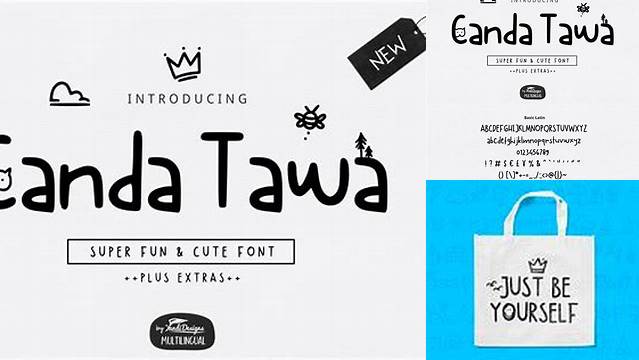
Are you looking to add a touch of playfulness and charm to your designs? The Canda Tawa cute font might be just what you need! This delightful font is perfect for a wide range of projects, from birthday invitations and greeting cards to social media graphics and branding materials. Its whimsical and friendly appearance makes it an excellent choice for designs that aim to evoke joy and warmth. In this comprehensive guide, we’ll explore everything you need to know about the Canda Tawa font, including what makes it so special, where you can download it for free, and how to use it effectively in your projects. We'll also delve into the design elements that make this font a standout choice and provide tips on pairing it with other fonts to create stunning visual compositions. So, if you're ready to infuse your work with a dose of cuteness, let's dive in and discover the world of Canda Tawa!
The Canda Tawa font isn't just another typeface; it's a design element that can significantly impact the overall feel and message of your project. Think about it – fonts are like the voice of your design. A serious, formal font might be perfect for a legal document or a corporate report, but when you're aiming for something lighthearted and fun, a cute font like Canda Tawa can make all the difference. This font has a unique personality that shines through, making it ideal for projects targeting children, creative endeavors, or anything that needs a touch of whimsy. The beauty of Canda Tawa lies in its versatility. It’s not just for kids’ stuff; you can use it in various contexts to add a friendly and approachable vibe. Imagine using it for a small business's logo, a blog header, or even a quirky T-shirt design. The possibilities are endless!
So, what exactly makes the Canda Tawa font so irresistibly cute? It's a combination of several design elements that come together to create a font that's both charming and playful. First and foremost, the rounded edges and soft curves of the letters give it a gentle, approachable feel. Unlike sharp, angular fonts that can sometimes feel harsh or formal, Canda Tawa’s curves create a sense of smoothness and warmth. This makes it incredibly inviting and easy on the eyes. Think of the letters as little, huggable characters – they’re just so friendly! The consistent stroke thickness throughout the font also contributes to its cuteness. A consistent stroke means that the lines that make up each letter are roughly the same width. This creates a sense of balance and harmony, making the font look clean and well-proportioned. It’s not too thin, making it delicate, and it’s not too thick, making it heavy. It’s just right, creating a visual sweetness that’s hard to resist.
Another key element of the Canda Tawa font is its playful letterforms. Some letters might have a slight tilt, a little curl, or an unexpected loop that adds a touch of whimsy. These little quirks give the font character and make it stand out from more generic typefaces. It’s these subtle details that make Canda Tawa feel unique and special. The spacing between letters, also known as kerning, plays a significant role in the font's overall appearance. Canda Tawa typically has generous spacing, which means the letters aren’t too crowded together. This makes the font easy to read and gives each letter room to breathe. Proper spacing is crucial for readability, especially in longer blocks of text. With Canda Tawa, the spacing is just right, ensuring that your message comes across clearly and beautifully. The overall design of Canda Tawa is carefully crafted to evoke a sense of joy and lightheartedness. It’s a font that doesn’t take itself too seriously, and that’s part of its charm. When you use Canda Tawa, you’re not just adding text to your design; you’re adding a personality. It’s a font that can instantly make your project feel more cheerful, friendly, and approachable.
Consider how the font might look in various sizes. A font that looks cute and legible in large headlines might become difficult to read in smaller body text. Canda Tawa generally performs well in a range of sizes, but it’s always a good idea to test it out to make sure it meets your specific needs. This brings us to another point: color. The color of your font can dramatically impact how it’s perceived. Canda Tawa, with its playful nature, pairs well with bright, cheerful colors. Think pastel shades, vibrant hues, and even a touch of sparkle. However, don’t be afraid to experiment with darker colors for a more sophisticated look. The key is to find a balance that complements your overall design. When you put all these elements together – the rounded edges, consistent strokes, playful letterforms, and generous spacing – you get a font that’s undeniably cute. Canda Tawa is a font that’s designed to bring a smile to your face, and it does so with effortless charm. Whether you’re working on a children’s book, a party invitation, or a social media post, Canda Tawa is a fantastic choice for adding a touch of sweetness and personality to your work.
So, you've downloaded the Canda Tawa font and you're ready to use it in your designs. Great! But how do you ensure that you're using it effectively to achieve the best results? Here are some tips and guidelines to help you make the most of this charming typeface. First and foremost, consider the overall tone and message of your project. Canda Tawa is a cute and playful font, so it's best suited for designs that have a similar feel. Think about projects like children's books, birthday invitations, greeting cards, social media graphics, and branding for businesses that want to project a friendly and approachable image. If you're working on something formal or serious, Canda Tawa might not be the best choice. It’s all about matching the font to the mood and message you're trying to convey.
As you experiment with the Canda Tawa font, don't be afraid to push the boundaries and try new things. Design is all about exploration and self-expression, and fonts are just one of the many tools you can use to bring your vision to life. With its cheerful vibe and friendly appearance, Canda Tawa is sure to add a touch of sweetness to your designs. Thank you for joining us on this journey through the world of Canda Tawa. We hope you've found this guide helpful and inspiring. Now it's time to put your newfound knowledge into practice and create something amazing! Happy designing!